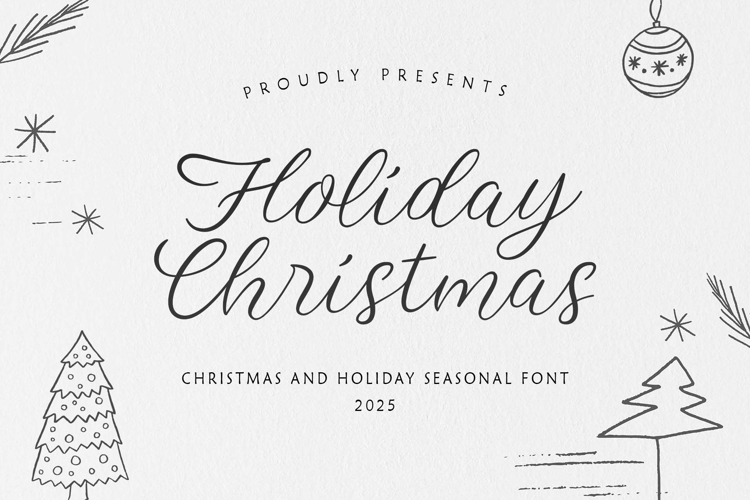
Christmas Seasonal - A Christmas Theme Font
Holiday Christmas is a playful and modern script font. It's a christmas and holiday seasonal font. Standard punctuation glyphs are included. Holiday Christmas is perfectly suited for christmas card, holiday and christmas quotes, wedding invitations. Great for crafters. Compatible with tools such as Photoshop or Silhouette design studio. Its playfulness make it great for creative projects, be it inspirational wall posters of for communicating your brand.
Alternate Characters
Ligatures
Contextual Alternate on "s" glyph
Multilingual Support